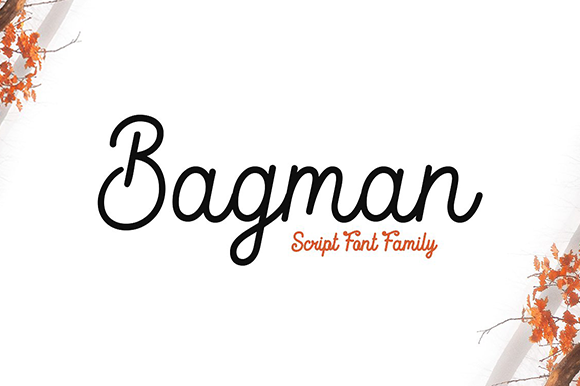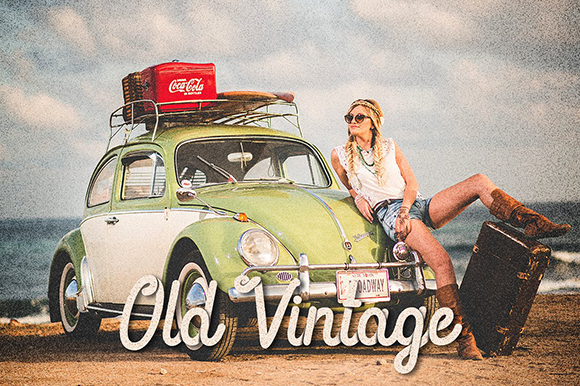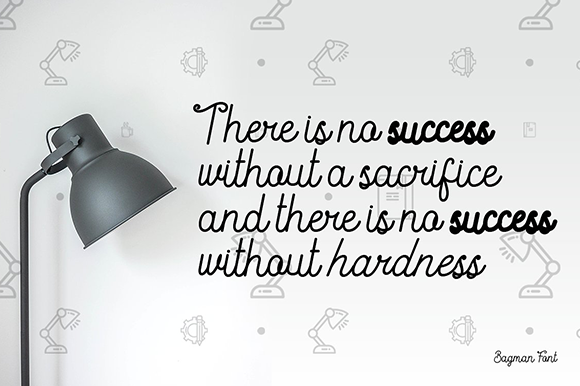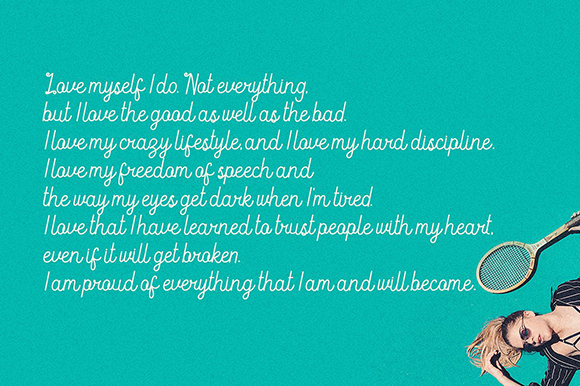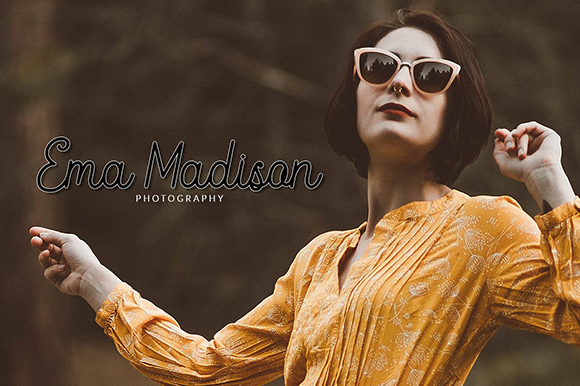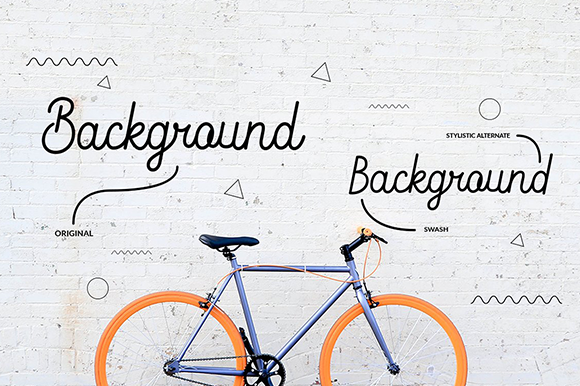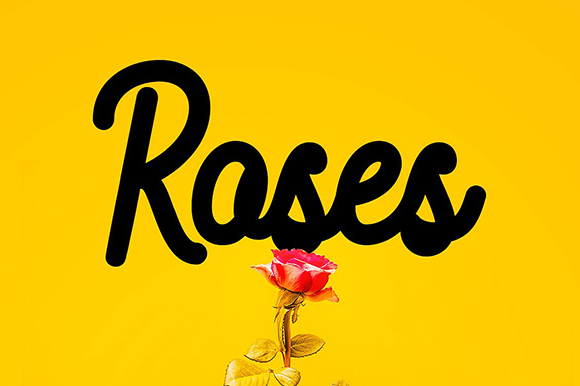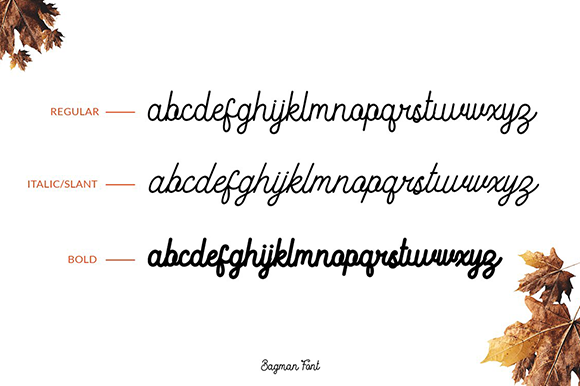
Bagman Font
About Bagman Font
Bagman is a lovely and bold handwritten font with a unique authentic spin. It will turn any design project into a true stand out.